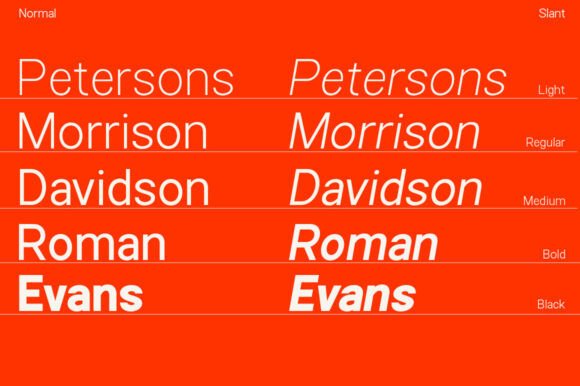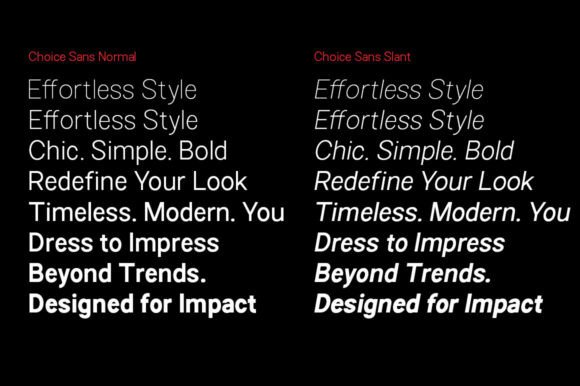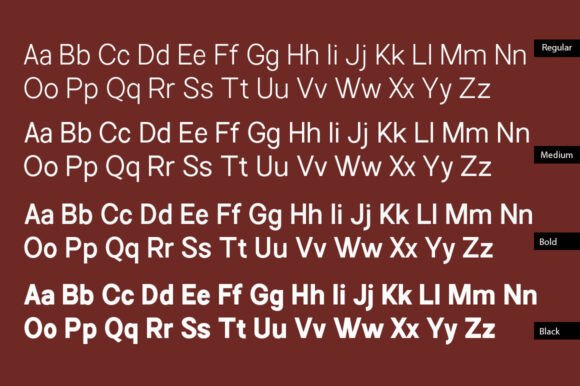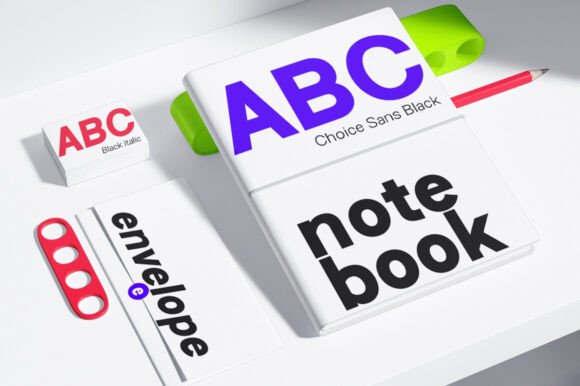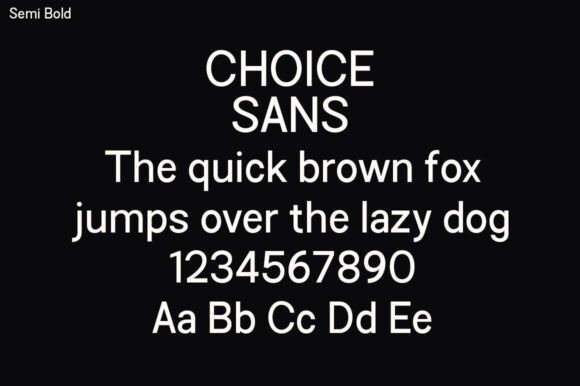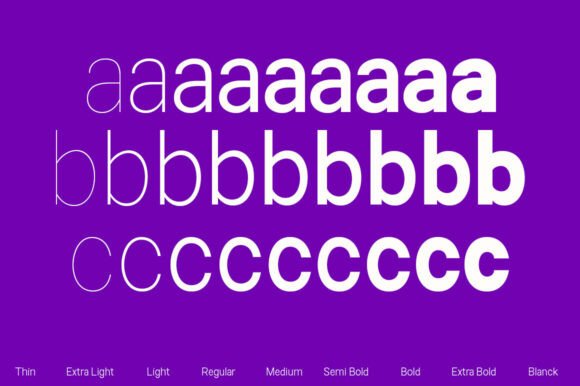
Introducing Choice Sans Family Font: Elevate Your Design with Modern Elegance
In the world of typography, the right font can make all the difference in the success of a design project. For designers and crafters seeking a modern sans-serif typeface that offers both visual impact and functional flexibility, look no further than the Choice Sans Family Font. This versatile font family features a complete set of 18 styles, comprising 9 uprights and 9 matching italics, carefully crafted to meet the diverse needs of contemporary design.
A Broad Weight Range for Limitless Design Possibilities
One of the standout features of the Choice Sans Family Font is its broad weight range. With 9 upright styles and 9 matching italics, designers have an extensive toolkit at their disposal to tackle a wide range of design challenges. Whether you’re working on bold branding initiatives, sleek editorial projects, or digital interfaces, Choice Sans provides the perfect balance of form and function.
The font’s refined construction ensures that each style is not only visually appealing but also highly legible, making it an excellent choice for body text, headings, and display text. The range of weights, from light to bold, allows designers to create visual hierarchies with ease, ensuring that their message is conveyed with clarity and impact.
Refined Construction for Enhanced Readability
The Choice Sans Family Font boasts a refined construction that sets it apart from other sans-serif typefaces. Its clean lines, subtle curves, and carefully considered letterforms come together to create a font that is both modern and highly readable. This makes it an excellent choice for editorial projects, such as magazines, newspapers, and books, where readability is paramount.
In addition to its editorial applications, Choice Sans is also well-suited for digital interfaces, including websites, mobile apps, and software. Its clear and concise letterforms ensure that users can navigate and engage with digital content with ease, making it an excellent choice for user interface (UI) design.
Design Applications: Where Choice Sans Shines
The versatility of the Choice Sans Family Font makes it an excellent choice for a wide range of design applications. Here are just a few examples:
- Branding: Use Choice Sans to create bold, eye-catching logos and brand identities that make a lasting impression.
- Editorial: Choose Choice Sans for magazines, newspapers, and books where readability and style are essential.
- Digital Interfaces: Select Choice Sans for websites, mobile apps, and software where clear and concise typography is crucial for user experience.
Crafting with Choice Sans: Tips and Inspiration
For crafters and designers looking to get the most out of the Choice Sans Family Font, here are a few tips and inspiration:
- Experiment with weight combinations: Don’t be afraid to mix and match different weights to create visual interest and hierarchy in your design.
- Play with lettering: Use Choice Sans to create custom lettering and typography that adds a personal touch to your design.
- Pair with complementary fonts: Combine Choice Sans with other fonts to create unique and visually appealing typography.
In conclusion, the Choice Sans Family Font is a versatile and modern sans-serif typeface that offers designers and crafters a powerful toolkit for creating stunning designs. With its broad weight range, refined construction, and highly legible letterforms, Choice Sans is the perfect choice for a wide range of design applications. Whether you’re working on branding, editorial, or digital interfaces, Choice Sans is sure to elevate your design and deliver results.